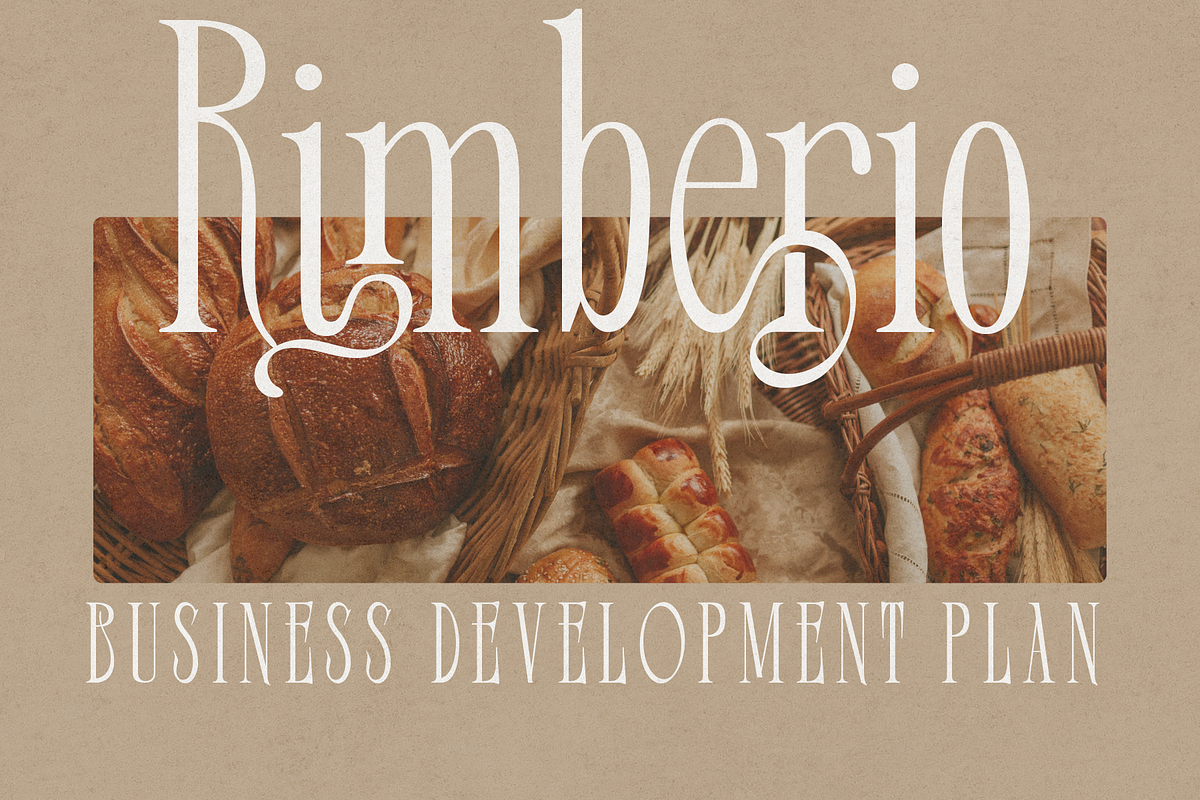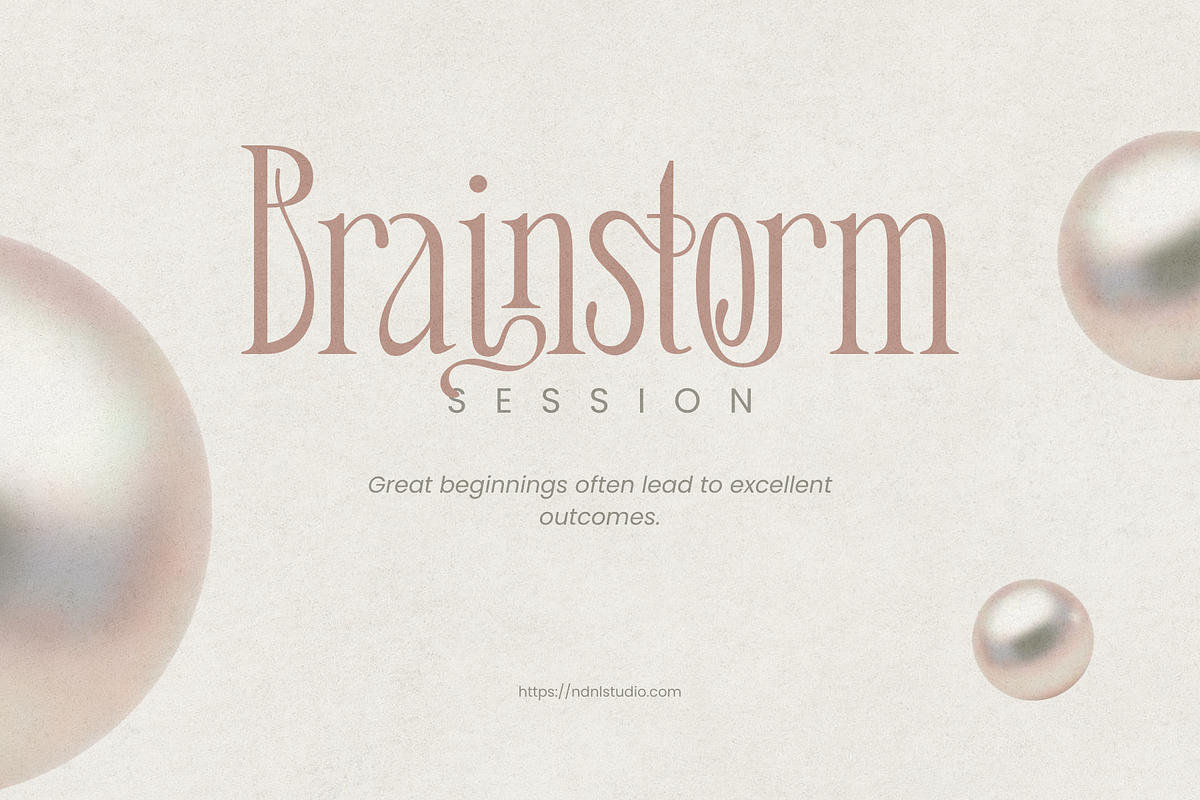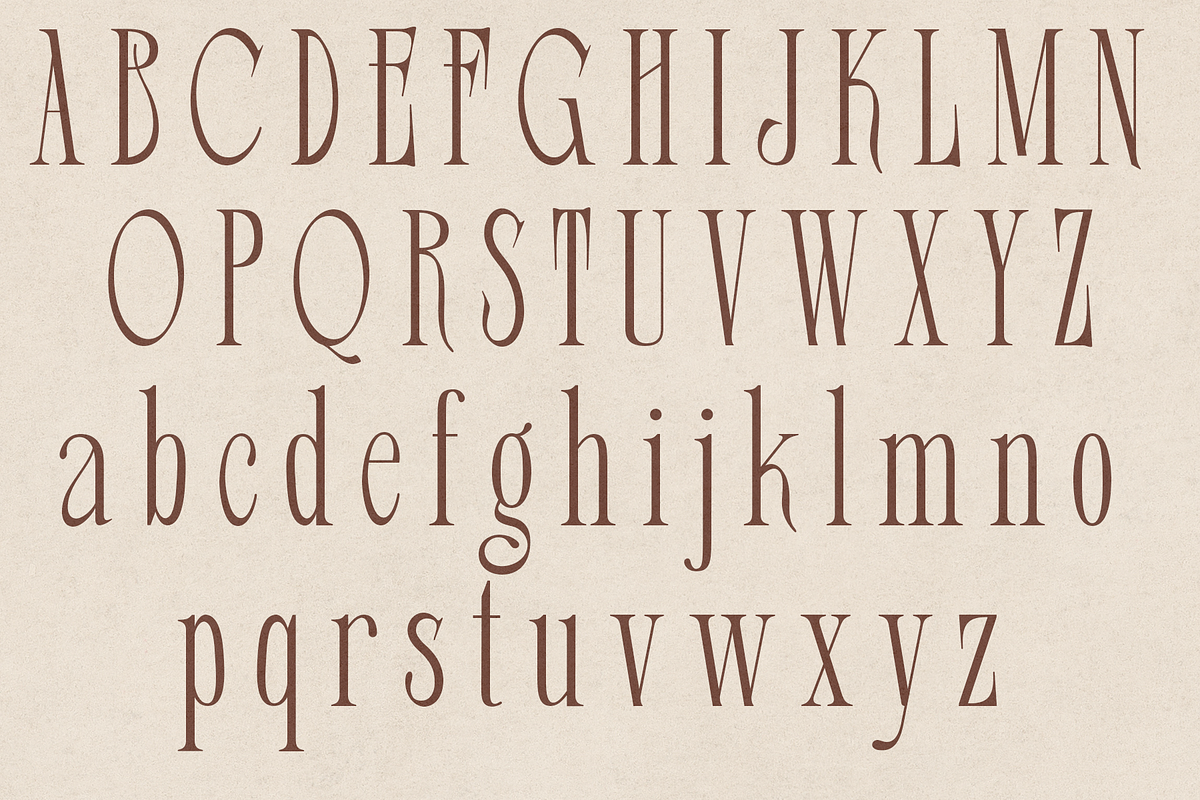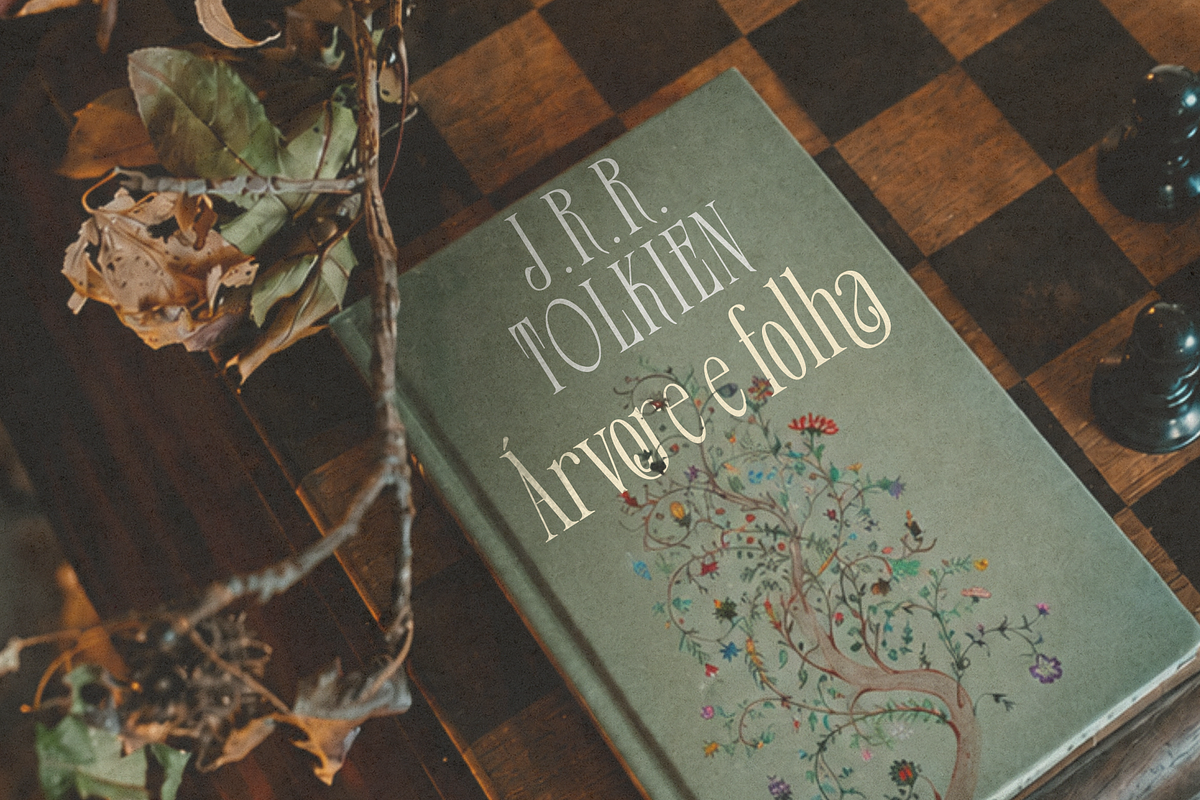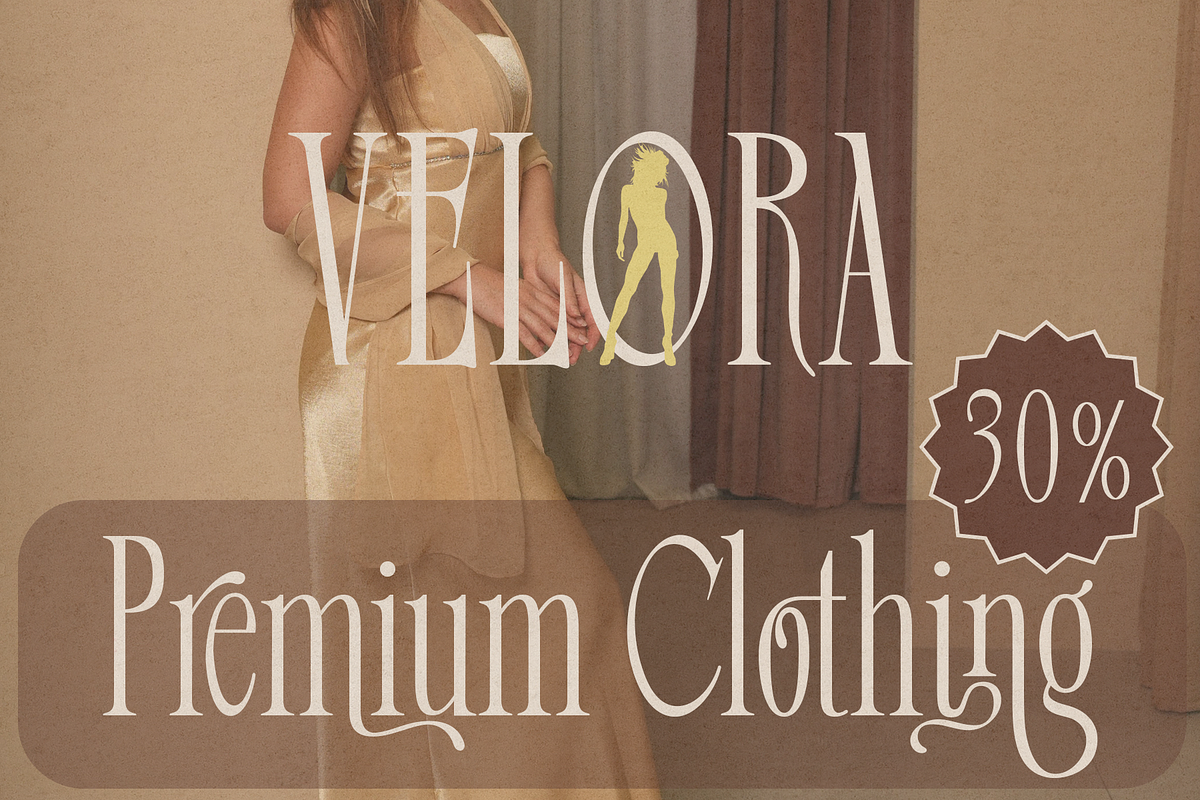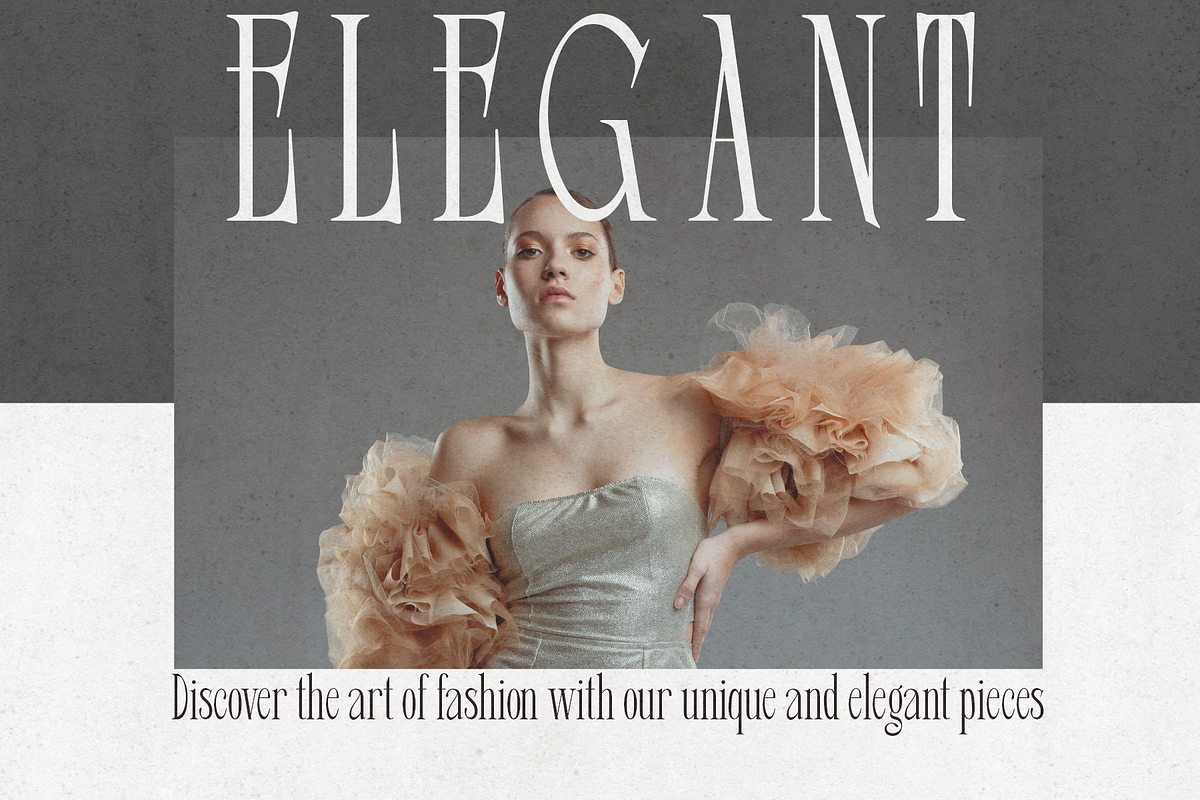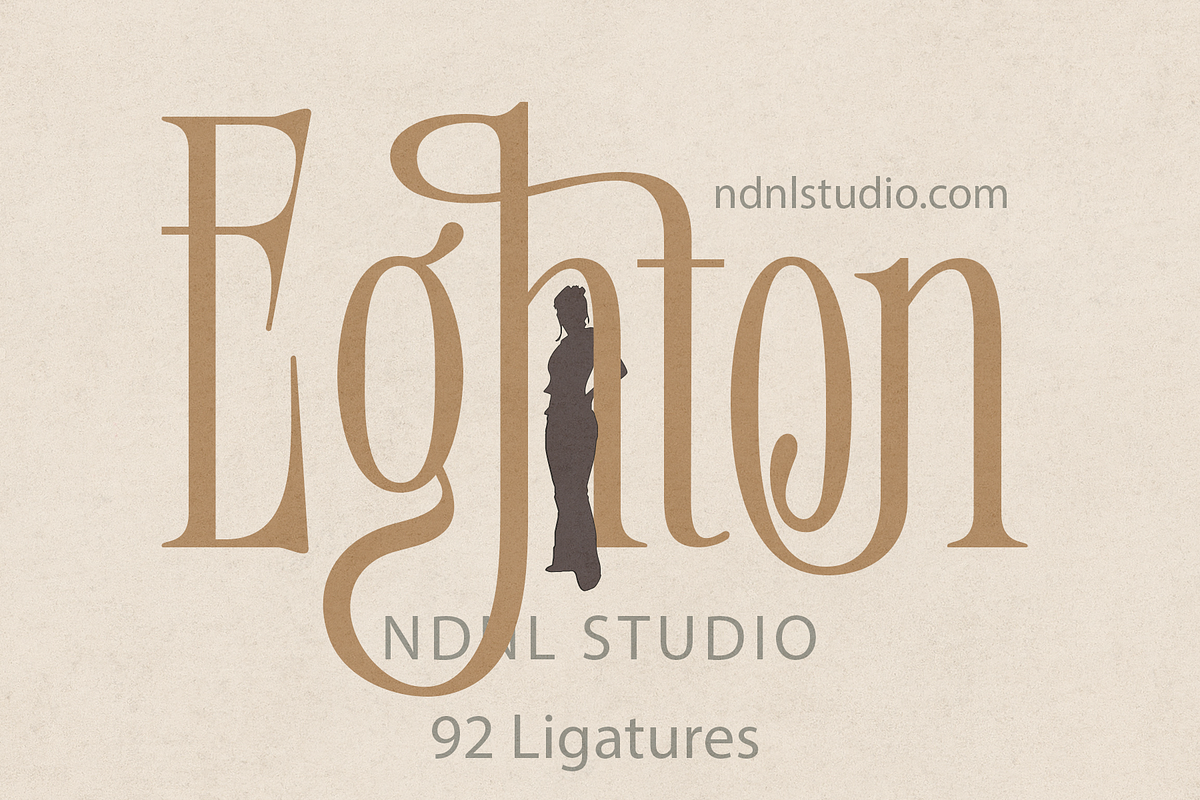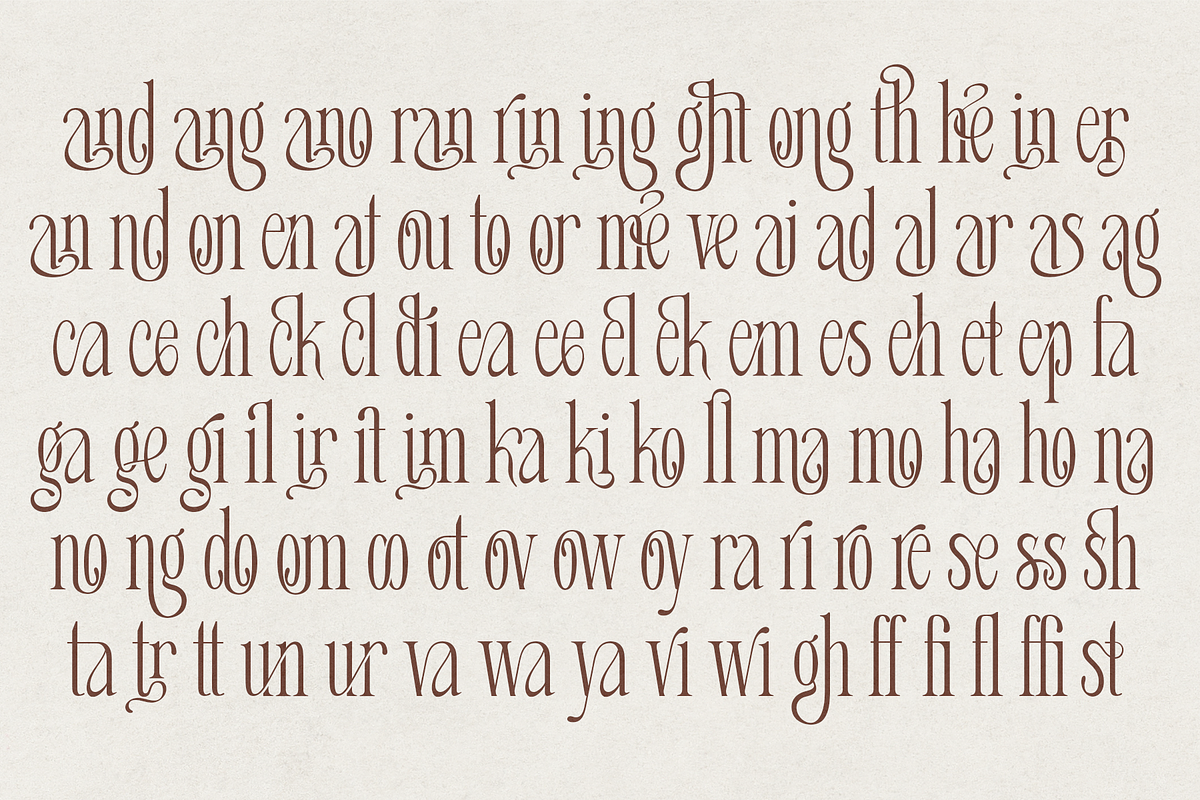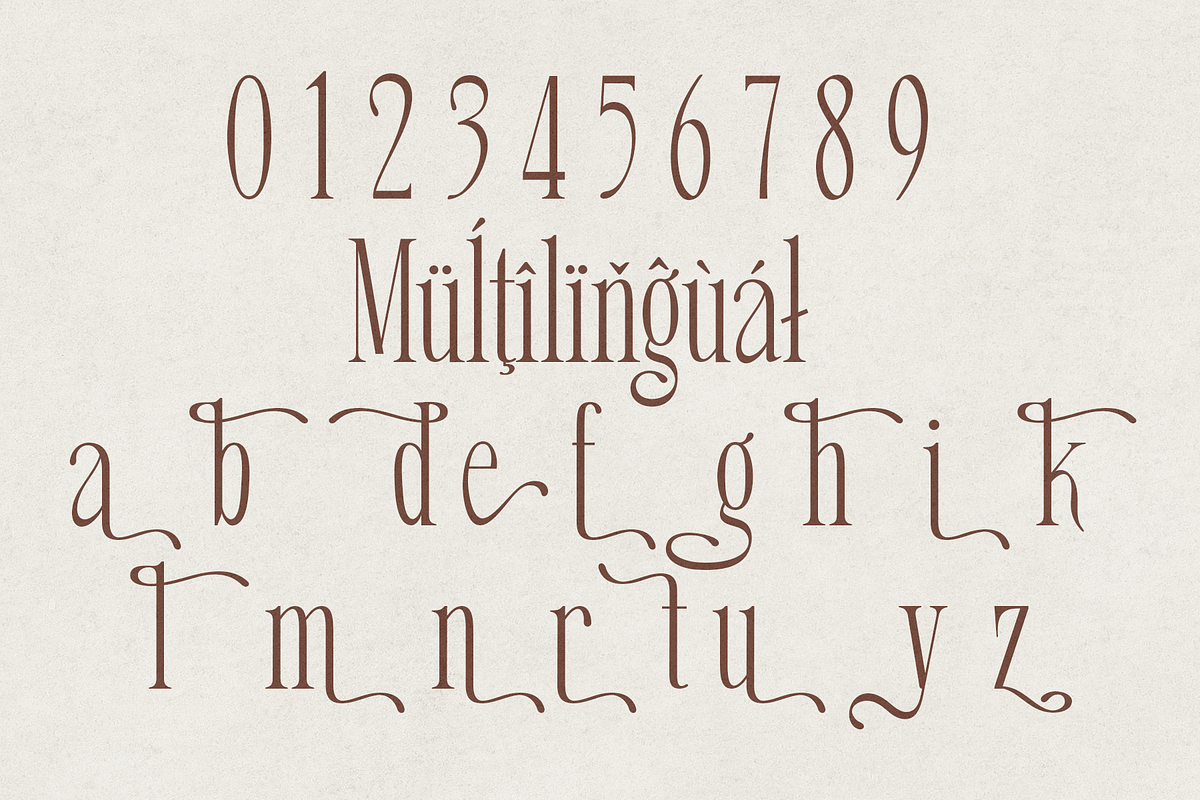
Eghton – Serif Font
Eghton is a refined modern serif font designed to bring timeless elegance and artistic sophistication to your creative projects. Featuring graceful high-contrast letterforms, elongated curves, and 92 carefully crafted ligatures, Eghton creates a seamless typographic experience that instantly captures attention.
Inspired by the beauty of fashion, editorial design, and contemporary branding, Eghton blends classic serif aesthetics with a modern touch. Its distinctive ligatures add personality and fluidity, making every word feel unique and beautifully composed.
Whether you’re designing logos, wedding stationery, magazine headlines, packaging, or branding projects, Eghton delivers a graceful and memorable visual impression with effortless elegance.